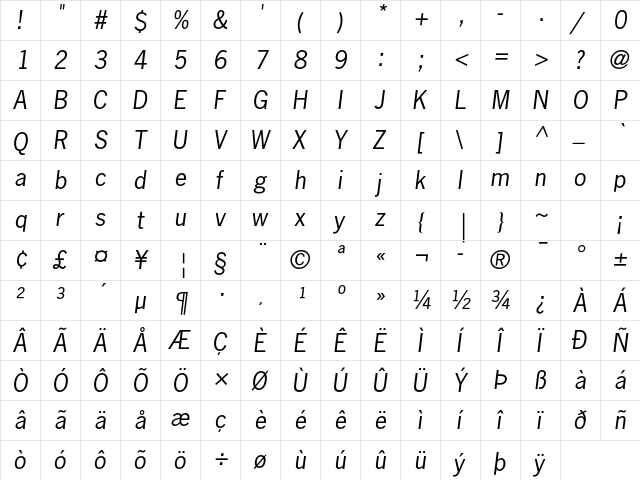
News Gothic Std Oblique
| Designer | Morris Fuller Benton |
Design Context for News Gothic Std Typeface
News Gothic Std takes a clean, functional approach — its unadorned letterforms prioritise legibility and work reliably across screen and print environments. The dynamic lean of this cut emphasises speed and emphasis in any layout.
Font Pairing: Works well alongside a characterful serif or display font that can carry the expressive load while News Gothic Std handles the functional copy.
Pro Tip: Use News Gothic Std for UI labels, navigation, and short-form body copy where clean legibility is the priority.